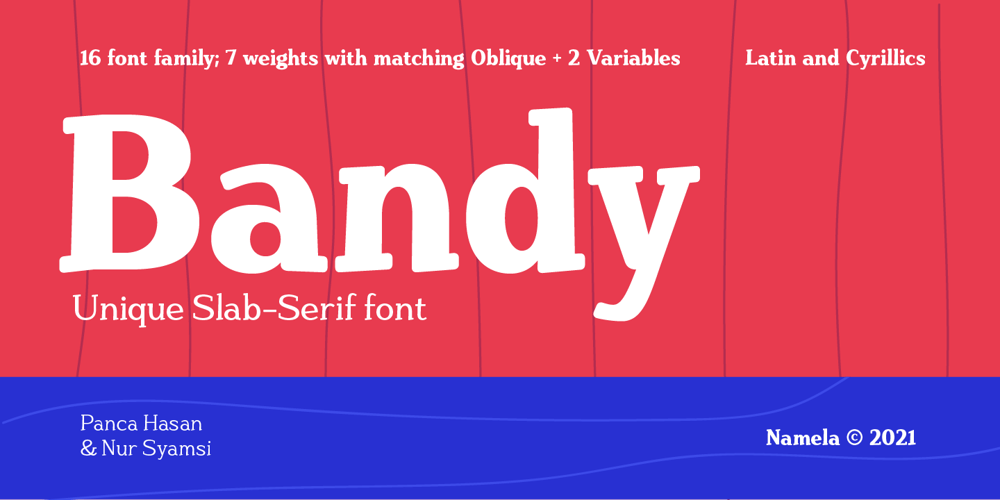
Bandy
Bandy font
Bandy Font Family was designed by Nur Syamsi, Panca Hasan and published by NamelaType. Bandy contains 16 styles and family package options. Rounded and bended slab that’s why we named this font “Bandy”This font is great for you to use as a display font and is suitable for body text. cool anyway if you use it for your design and printing needs.Available in many languages, and open type features, supported with Latin and standard Cyrillic.Build with 14 fonts with 7 sizes with matching Oblique and 2 Variables